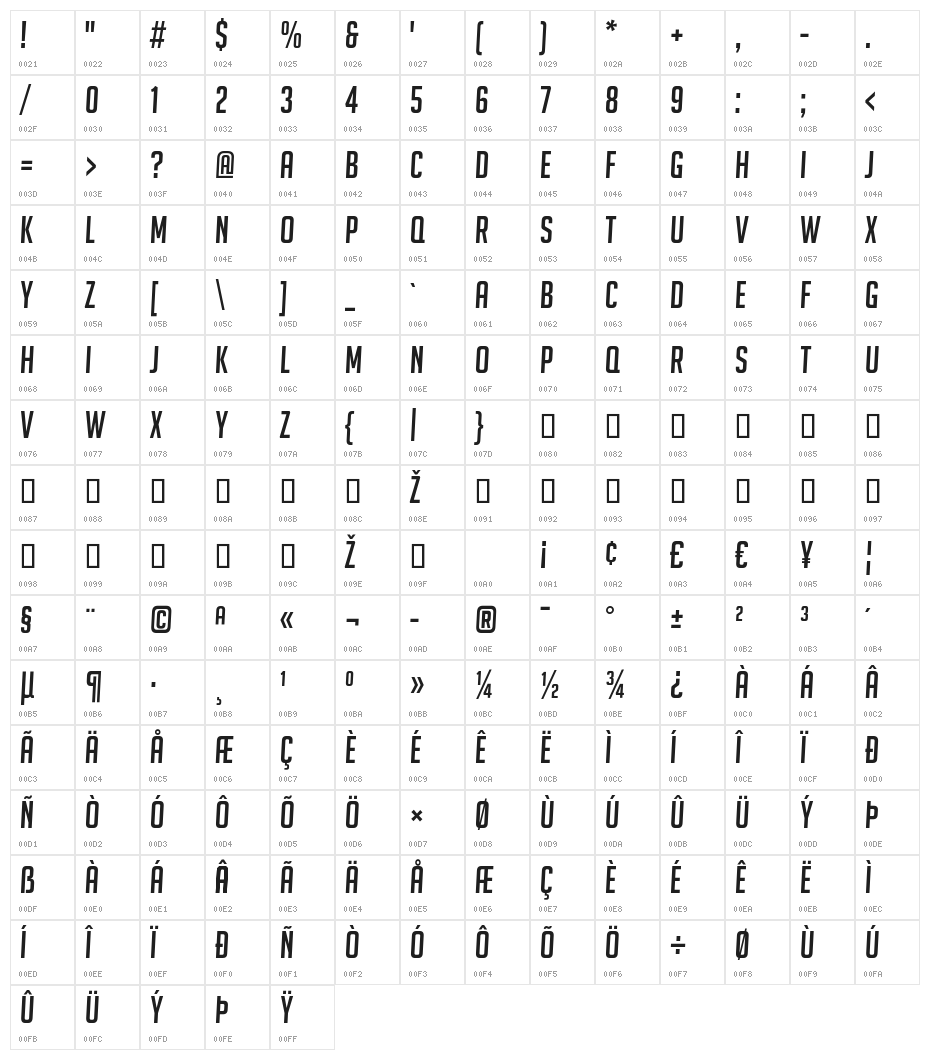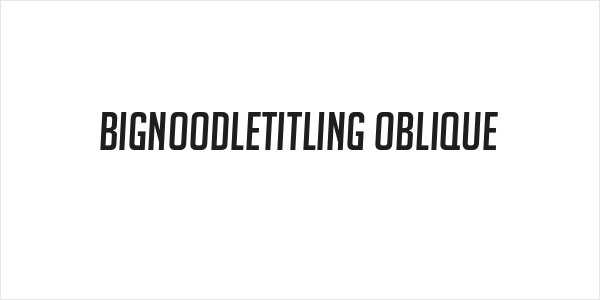
BigNoodleTitling Oblique Font
BigNoodleTitling Oblique Description
This font features a bold and dynamic style with an oblique slant, giving it a sense of motion and energy. The characters are tall and narrow, with a consistent stroke width that adds to its modern and sleek appearance. The uppercase letters are particularly striking, with sharp angles and clean lines that make them stand out. The numbers and special characters maintain the same boldness and clarity, ensuring readability across different uses. This font is well-suited for projects that require a strong visual impact, such as headlines, posters, and branding materials.
| Proposed Projects | Ideal for headlines, sports branding, posters, and dynamic advertising. |